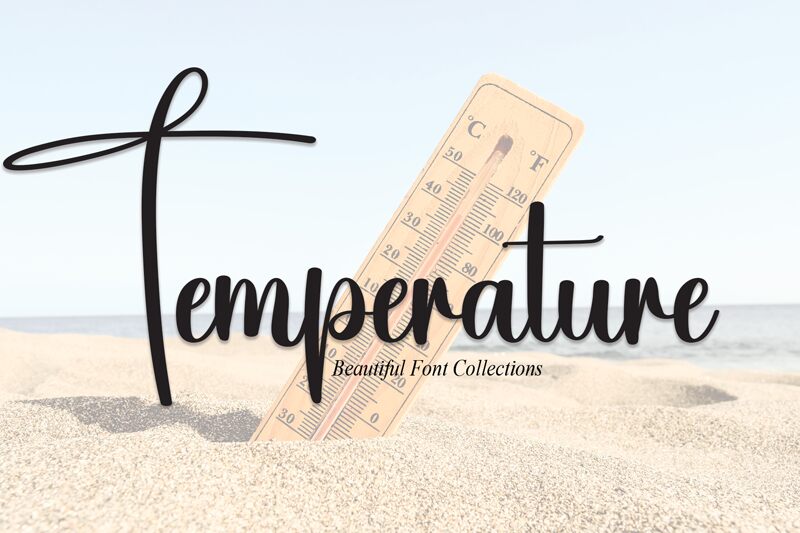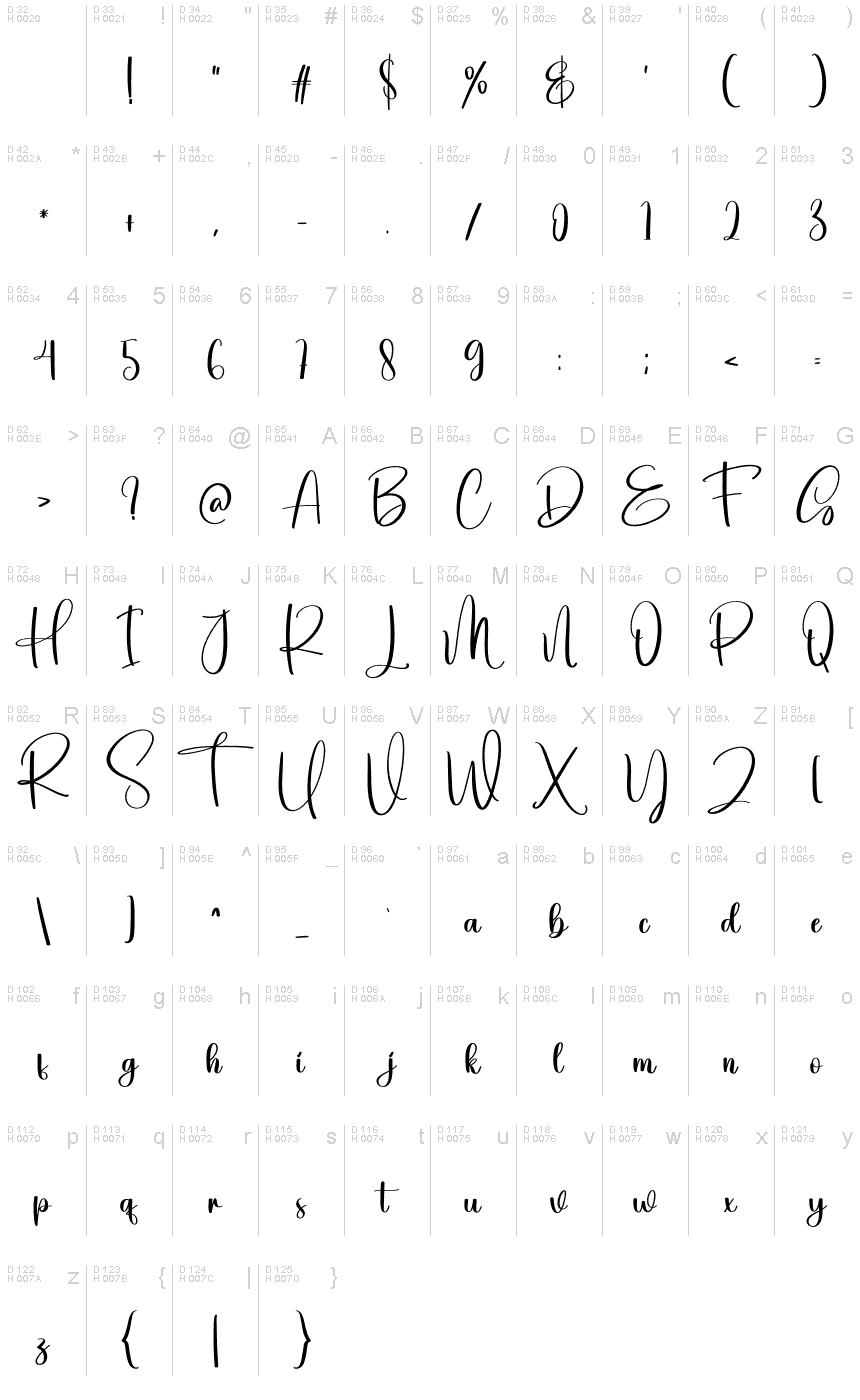
Temperature
Temperature, a calligraphic creation by Scratchones, exudes a sense of personal touch and elegance with its semi-light weight. The flowing lines and organic forms of this font carry the artistry of traditional handwriting into the digital age. Its sophisticated curves are reminiscent of ink on parchment, making it an ideal choice for invitations, branding, and editorial design where a touch of finesse is desired.
The nuanced strokes of Temperature balance delicacy with readability, ensuring that its aesthetic charm does not compromise functionality. This blend allows it to stand out in various applications—from social media graphics to product packaging—providing designers with a versatile tool that adds warmth and character to their projects. Embrace the allure of Temperature for designs that require a signature style with an air of modernity.